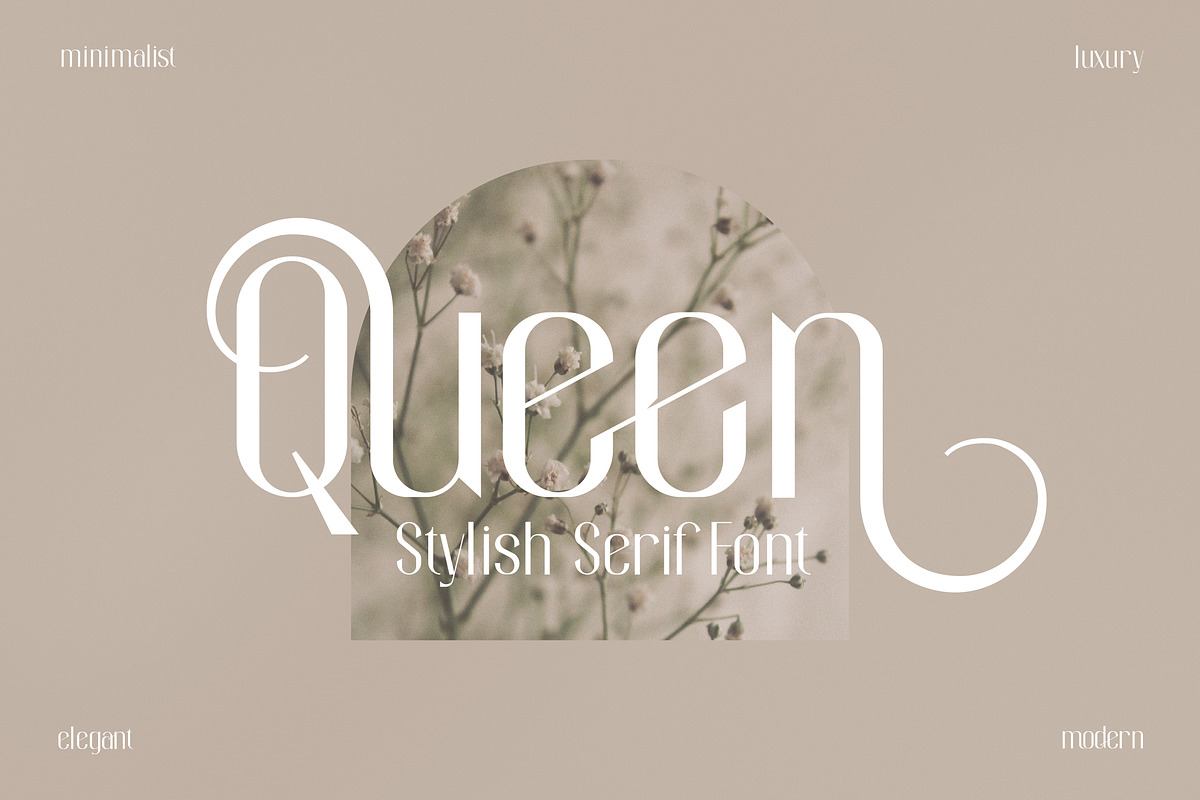
Elevate your design projects with the Queen Stylish and Modern Font, a sophisticated serif typeface that blends contemporary aesthetics with classic elegance. Ideal for branding, editorial design, logos, and more, this font adds a touch of refinement to any project.
• Design: A fusion of modern and vintage elements, providing a clean and stylish appearance.
• Usage: Suitable for various applications, including logos, book titles, fashion branding, magazines, and more.